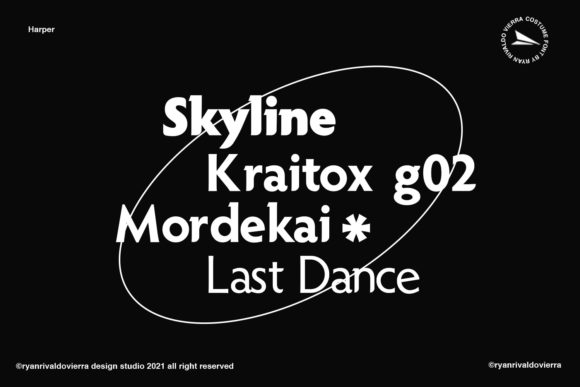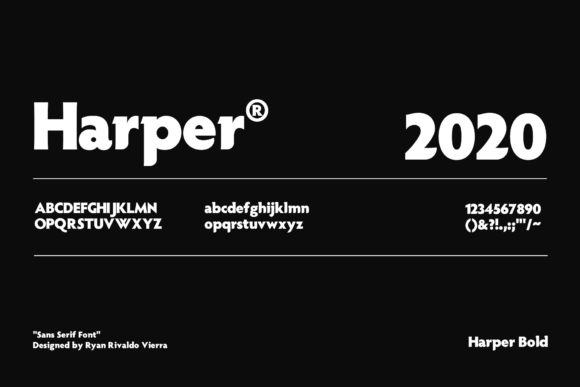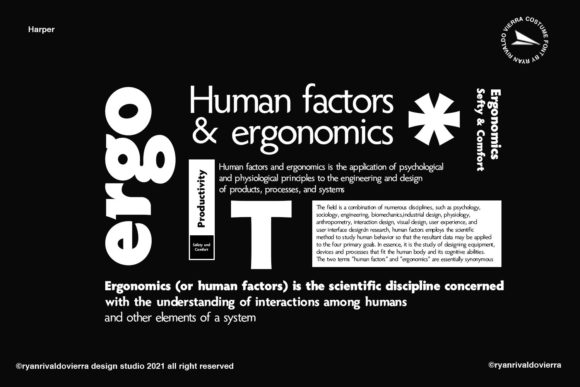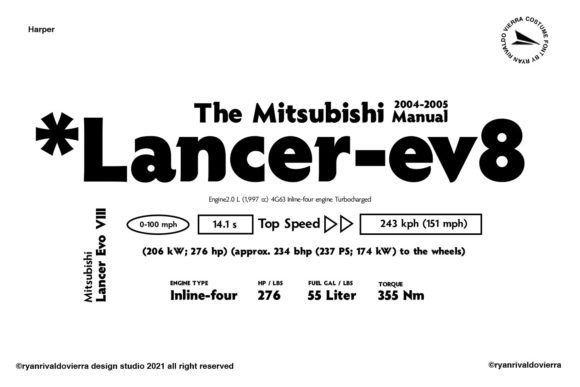
Discover the Bold and Versatile Haper Font: Elevate Your Designs with Confidence
Are you on the hunt for a font that makes a statement? Look no further than the Haper Font, a thick lettered and bold sans serif font that’s sure to take your designs to the next level. With its sleek and modern aesthetic, Haper is the perfect choice for designers and crafters looking to add a touch of sophistication and style to their work.
The Characteristics of Haper Font
Haper Font is a bold and eye-catching sans serif font that’s designed to make an impact. Its thick letters and clean lines give it a modern and edgy feel that’s perfect for a wide range of design applications. Whether you’re working on a poster, flyer, or print project, Haper is sure to grab attention and leave a lasting impression.
One of the standout features of Haper Font is its versatility. Its bold and confident style makes it perfect for headlines, titles, and other display text, while its clean and simple lines ensure that it remains legible even at smaller sizes. This makes Haper a great choice for designers who need a font that can adapt to different design requirements.
Endless Possibilities with Haper Font
So, what can you do with Haper Font? The possibilities are endless! Here are just a few ideas to get you started:
- Posters and Flyers: Use Haper to create eye-catching posters and flyers that grab attention and communicate your message with confidence.
- Print Design: Haper is perfect for a wide range of print design applications, from business cards and brochures to magazines and newspapers.
- Branding and Identity: Use Haper to create a bold and memorable brand identity that sets your business apart from the competition.
- Digital Design: Haper can also be used for digital design applications, such as website headers, social media graphics, and more.
Why Choose Haper Font?
So, why should you choose Haper Font for your design projects? Here are just a few reasons:
- Unique and Eye-Catching: Haper Font is a unique and eye-catching font that’s sure to make your designs stand out from the crowd.
- Highly Legible: Despite its bold style, Haper Font remains highly legible even at smaller sizes, making it perfect for a wide range of design applications.
- Versatile: Haper Font is incredibly versatile, making it perfect for a wide range of design projects and applications.
- Easy to Use: Haper Font is easy to use and can be easily integrated into your design workflow.
Tips for Using Haper Font
Here are a few tips for using Haper Font in your design projects:
- Use it for Headlines: Haper Font is perfect for headlines and titles, where its bold and eye-catching style can really make an impact.
- Experiment with Colors: Haper Font looks great in a wide range of colors, so don’t be afraid to experiment and find the perfect color for your design.
- Pair it with Other Fonts: Haper Font can be paired with other fonts to create a unique and interesting design. Try pairing it with a clean and simple sans serif font for a bold and modern look.
| Author | Ryan Vierra |
In conclusion, Haper Font is a bold and versatile font that’s perfect for designers and crafters looking to add a touch of sophistication and style to their work. With its sleek and modern aesthetic, Haper is sure to make a statement and leave a lasting impression. Whether you’re working on a poster, flyer, or print project, Haper Font is the perfect choice for designers who want to create something truly special.